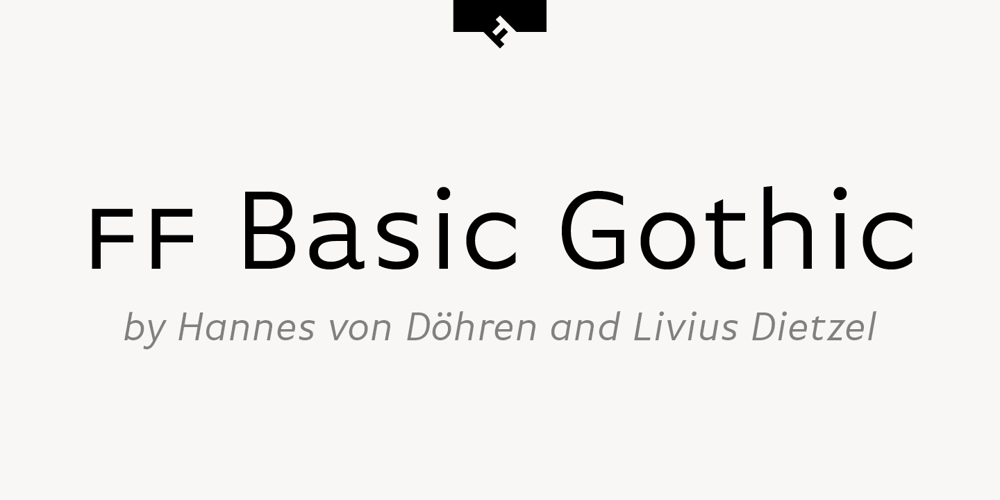
FF Basic Gothic Font Family was designed by Hannes von Döhren, Livius Dietzel and published by FontFont. FF Basic Gothic contains 16 styles and family package options. German type designers Hannes von Döhren and Livius Dietzel created this sans FontFont in 2010. The family has 16 weights, ranging from Extra Light to Black (including italics) and is ideally suited for advertising and packaging, editorial and publishing, logo, branding and creative industries, small text as well as web and screen design. FF Basic Gothic provides advanced typographical support with features such as ligatures, small capitals, alternate characters, case-sensitive forms, fractions, and super- and subscript characters. It comes with a complete range of figure set options – oldstyle and lining figures, each in tabular and proportional widths.